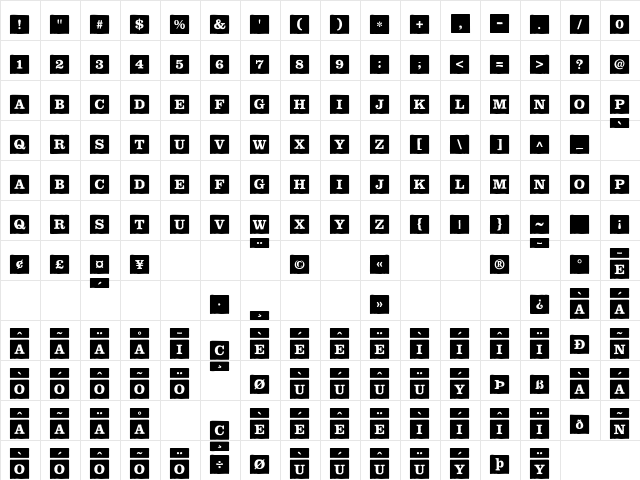
P22 ToyBox BlocksSolidBold Regular
Design Context for P22 ToyBox BlocksSolidBold Typeface
P22 ToyBox BlocksSolidBold takes a measured approach to typography — its balanced proportions and neutral character make it a reliable workhorse for both digital and print work. The heavy weight commands attention and anchors typographic hierarchies.